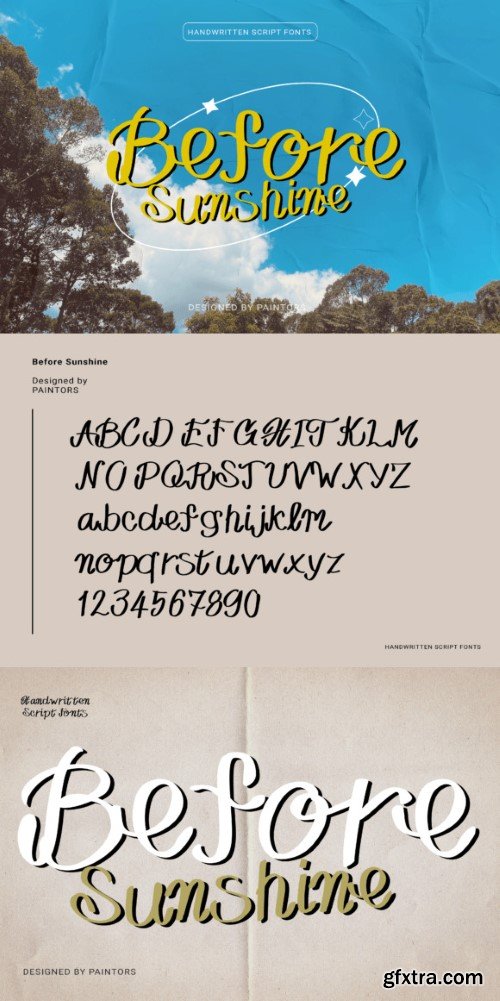
在Sunshine字体之前
Before Sunshine is a sweet and casual handwritten font that exudes warmth and approachability. Its gentle curves and soft lines create a welcoming tone, making it perfect for heartfelt messages, invitations, and personal touches.